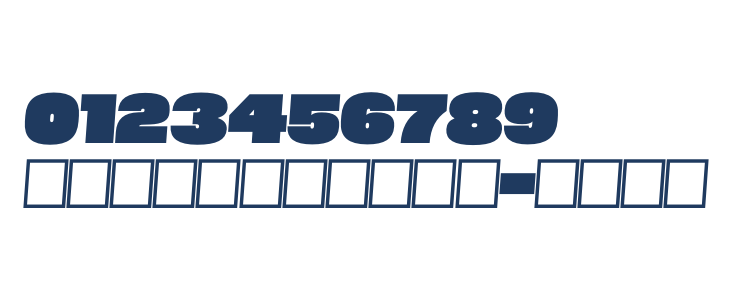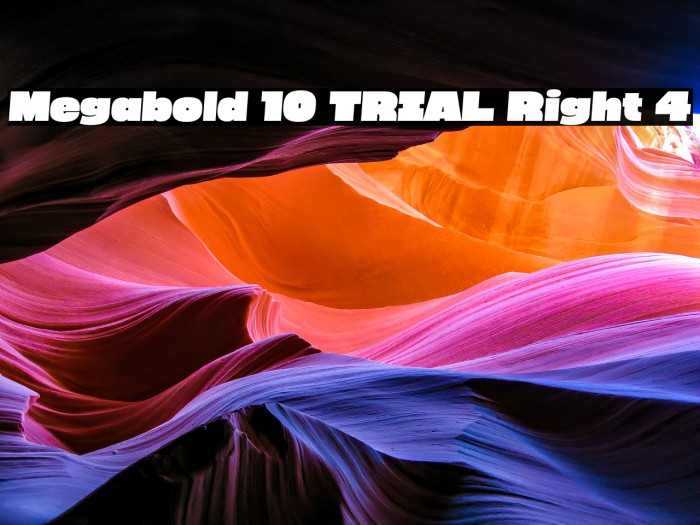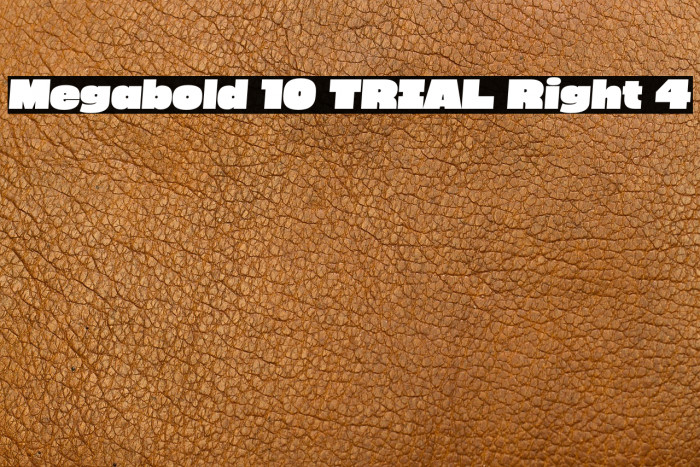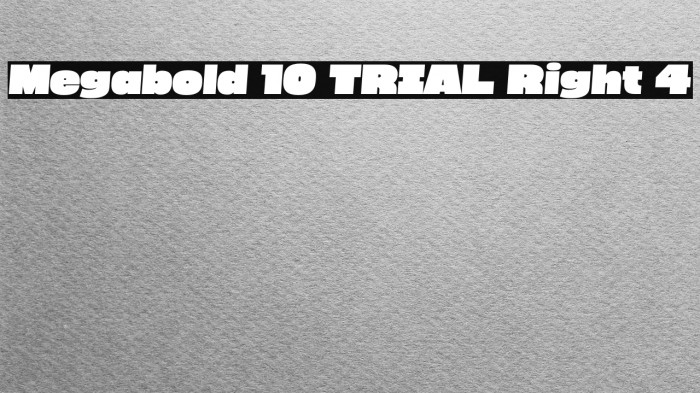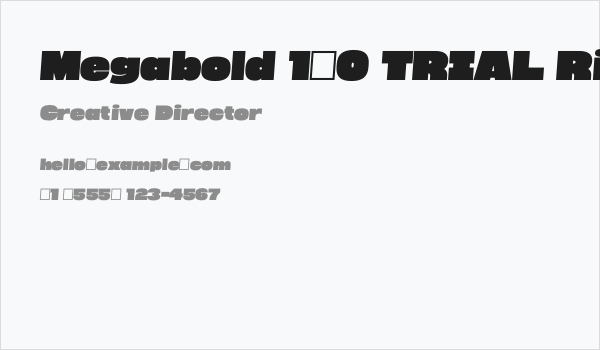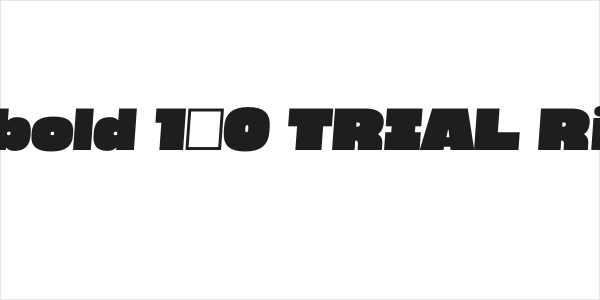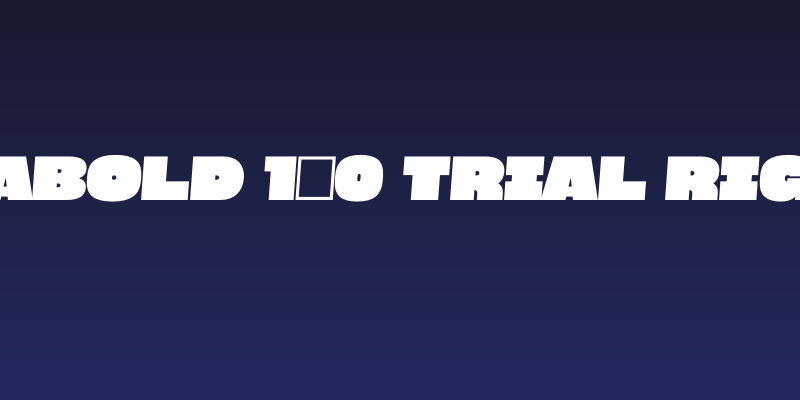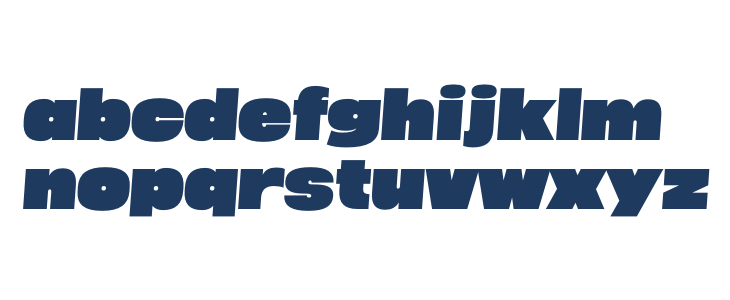
Megabold 1.0 TRIAL Right 4 Font
Megabold 1.0 TRIAL Right 4 Description
This font features a bold and impactful design, characterized by thick, heavy strokes that convey a sense of strength and presence. The uppercase and lowercase letters are uniformly wide, creating a cohesive and balanced appearance. The numbers and special characters maintain this boldness, ensuring consistency across all elements. The font's design is straightforward, with minimal embellishments, making it highly readable even at smaller sizes. Its strong visual weight makes it ideal for grabbing attention and making a statement.
| Proposed Projects | Ideal for headlines, posters, logos, and any project requiring a strong visual impact. |